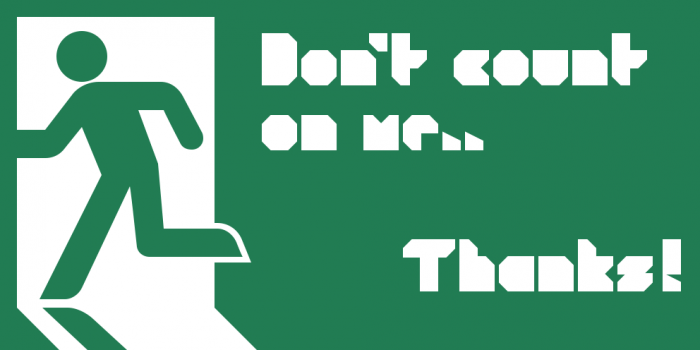
• MY "COUNTER" COMPETITION ENTRY.
The idea was to make a minimalism type without any counters at all, hence the name: "DON'T COUNT ON ME".
It's size is tiny (only 2x4 units) but that didn't cut the fun!
• Added some extra glyphs and removed some as well.
• Added kerning to some of the punctuations.